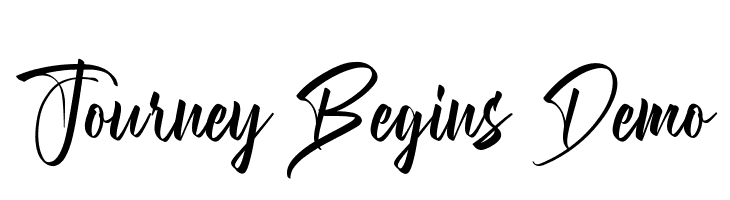
A dynamic and flowing script font with elegant, cursive letterforms.
A geometric, hexagonal-themed font with a modern and futuristic style.
An elegant, flowing script font with bold, cursive letterforms.
A bold, futuristic italic font with a halftone effect and geometric design.
A playful, whimsical script font with a handwritten style.
Cartoon face icon font with whimsical, illustrated characters.
A modern sans-serif font with an italic slant, offering elegance and readability.
A playful, handwritten font with tall, narrow letters and a whimsical style.
A bold, italic font with a dynamic and modern style.
A casual, hand-drawn font with rounded, playful letterforms.